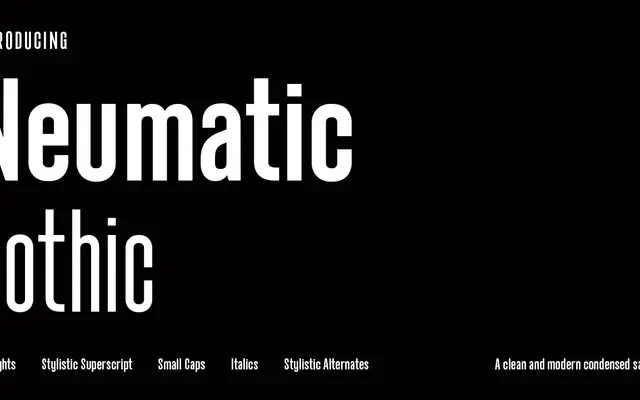
Neumatic Gothic
A condensed grotesque with a tall cap height and a generous OpenType feature set including small caps, stylistic alternates and circled numbers.
Built for headline and text use at tighter column widths, Neumatic Gothic offers seven weights from Light to Black, each with an oblique companion. The family includes small caps, superscript uppercase, stylistic alternates and scientific inferiors, giving graphic designers more typographic options within a single family. Latin Extended coverage supports a wide range of Western European languages.
A condensed sans-serif with tall cap height and moderate x-height, fitting the condensed grotesque tradition. No humanist or geometric traits are apparent from the description.